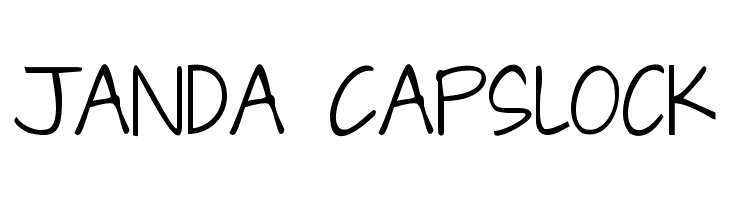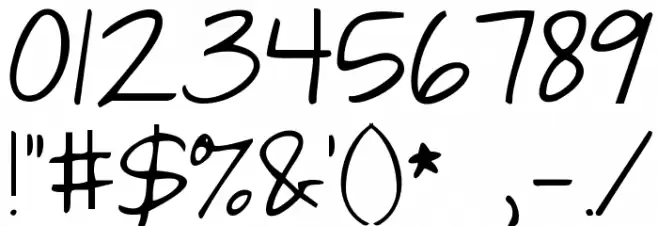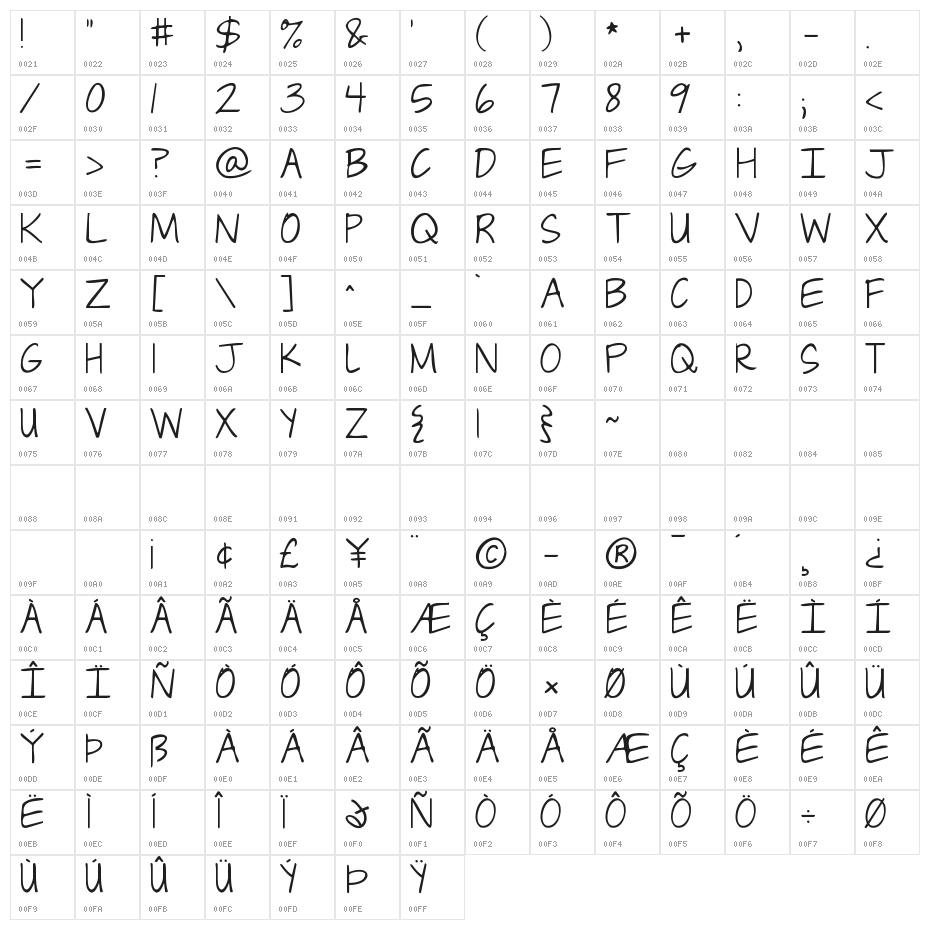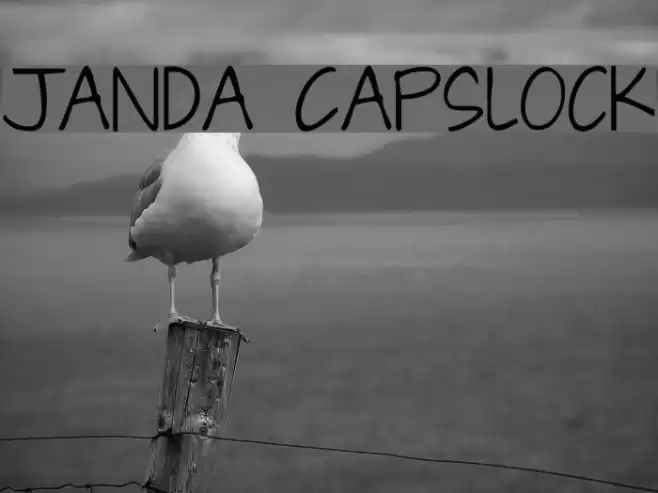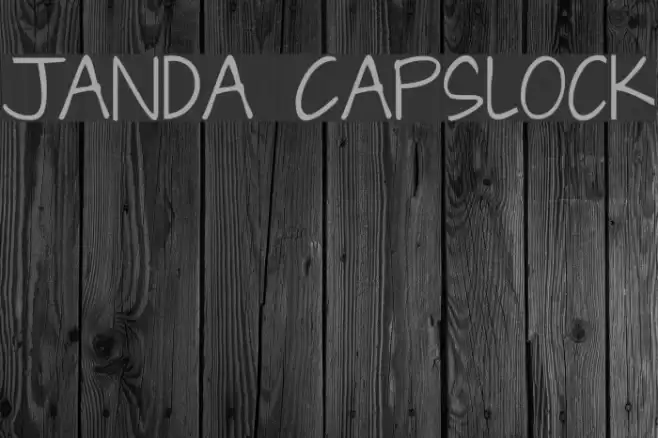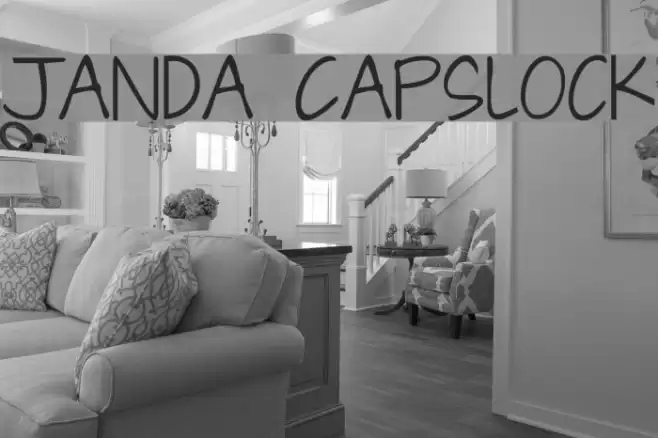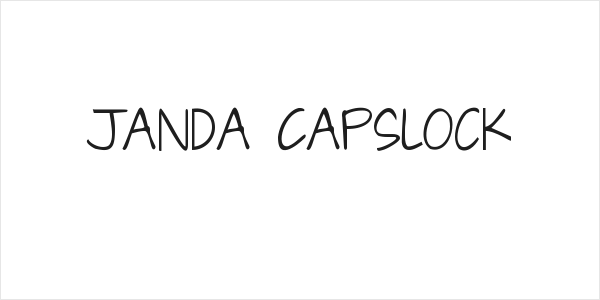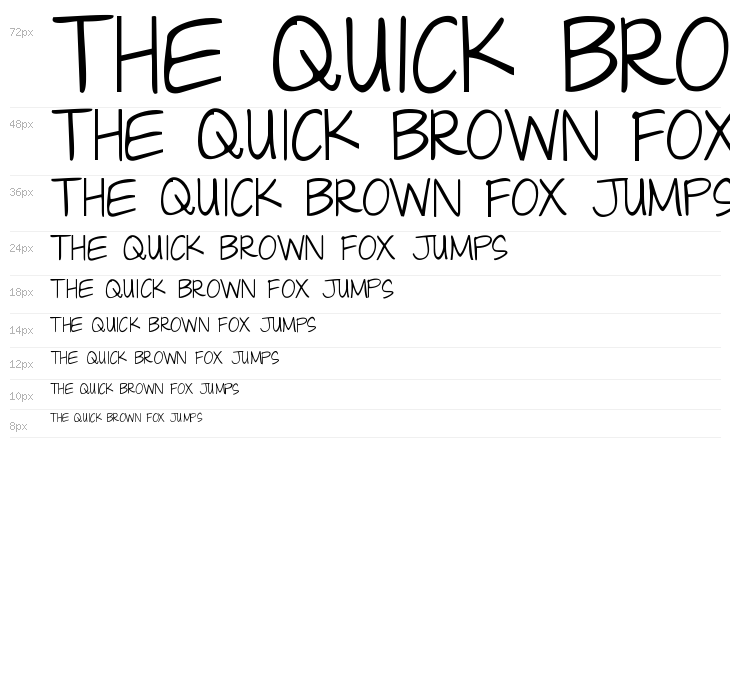
Janda Capslock Font
Janda Capslock Description
This font exhibits a playful and casual handwritten style, characterized by its smooth, flowing lines and slightly irregular shapes. The letters are predominantly uppercase, with a consistent height and width that maintains readability. The strokes are moderately thick, giving the font a bold presence without overwhelming the eye. The numbers and special characters follow the same stylistic cues, ensuring a cohesive look across all glyphs. The overall appearance is friendly and approachable, making it suitable for informal and creative projects.
| Proposed Projects | Ideal for greeting cards, children's books, playful branding, and casual invitations. |